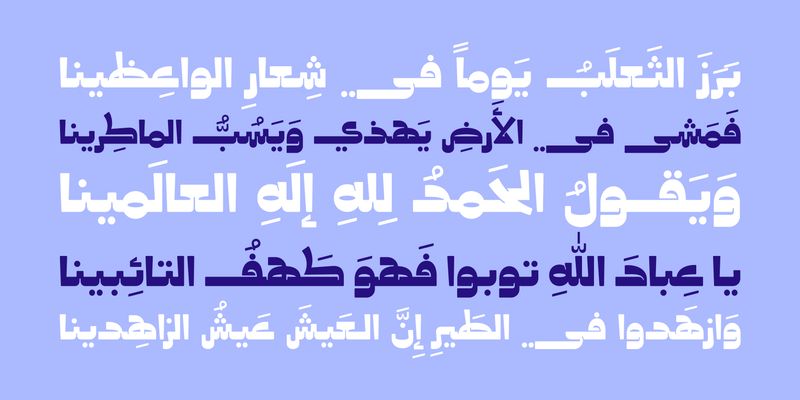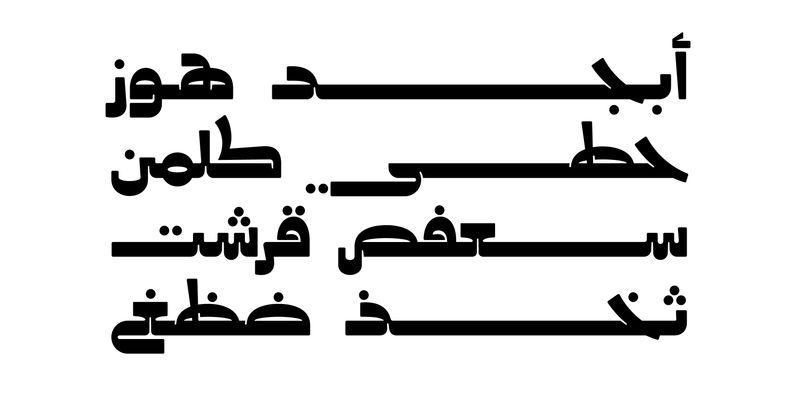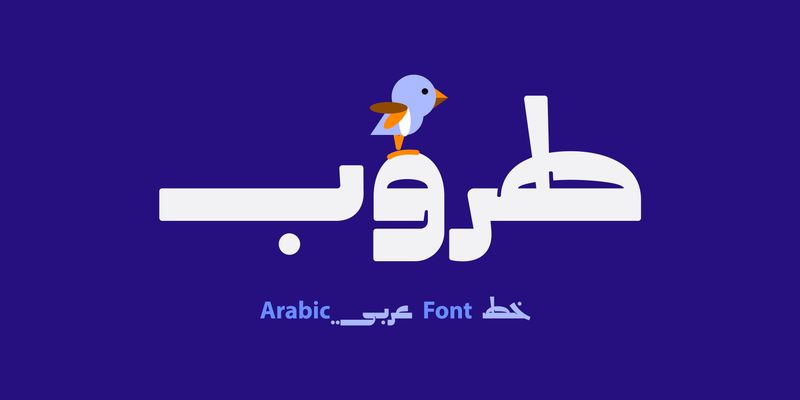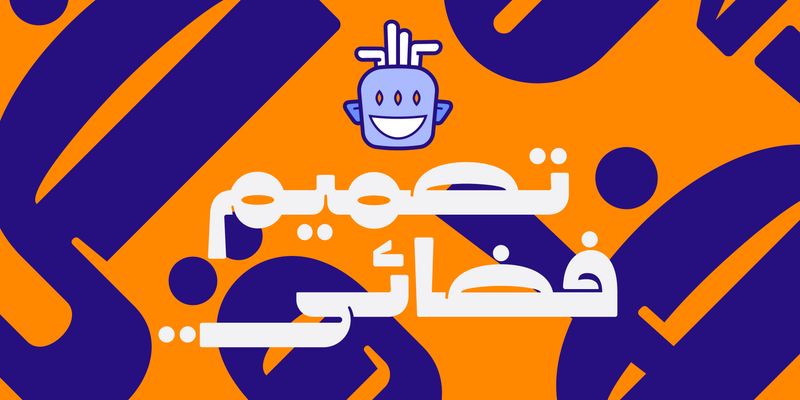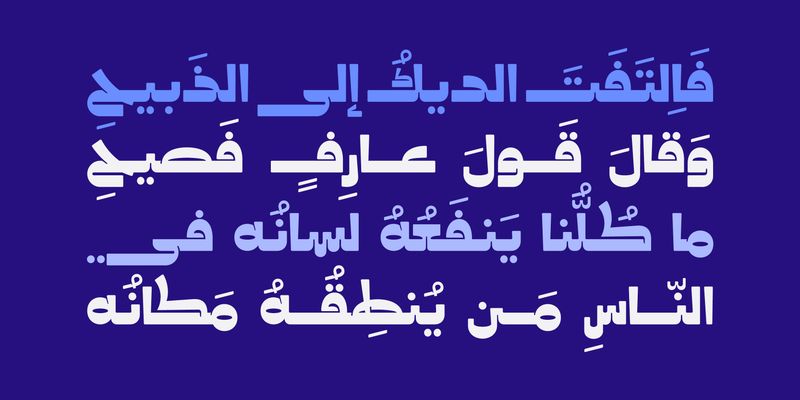
Taroub (Arabic for “Jaunty”) is a vibrant Arabic display font defined by its dynamic, energetic letterforms. Designed to bring movement and personality to your visuals, it’s an excellent choice for publication design, branding, advertising, and any creative project that needs a lively, expressive voice.
With reliable performance across web, print, and mobile applications, Taroub adds impact and flair wherever it’s used.
Mostafa El Abasiry is an independent Arabic type designer whose work has helped define a new era of expressive Arabic typography. Since 2009, he has built a distinctive and influential catalogue of Arabic typefaces known for their bold geometry, modern aesthetics, and emotionally resonant visual character. His designs are widely recognized for merging the structural clarity of geometric construction with the creative freedom of contemporary display typography.
Mostafa’s approach is rooted in a balance of mathematical precision and artistic intuition. Many of his typefaces begin as geometric studies - circles, arcs, grids, and modular systems, before evolving into expressive display families with strong visual identity. Other designs explore texture, layering, and experimental forms, expanding the expressive potential of Arabic letterforms in digital environments.
In 2017, Mostafa introduced Tajreed, the first Arabic OpenType‑SVG color font ever created. This pioneering work brought textured, multi‑layered Arabic typography into mainstream digital use and opened a new category of expressive Arabic tools for designers and everyday creators. Tajreed later grew into a broader ecosystem of textured and experimental families that influenced how Arabic typography appears in mobile apps, creative platforms, and user‑generated content.
Mostafa’s typefaces have been used by a wide range of clients, from global brands such as Apple TV+ and Turkish Airlines to millions of everyday creators. Despite this reach, his design process remains deeply personal: every typeface begins with hand‑drawn sketches, geometric construction, and a search for a unique visual voice rooted in Arab visual culture.
Today, Mostafa continues to expand his catalogue with new display families, textured experiments, and modern interpretations of Arabic typographic heritage. His work aims to give designers and creators expressive tools that did not exist before - tools that make Arabic typography feel bold, modern, and alive.